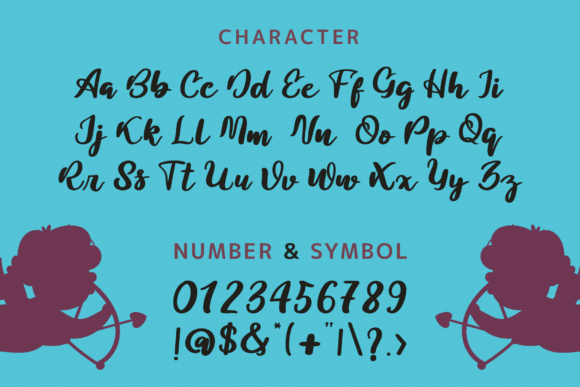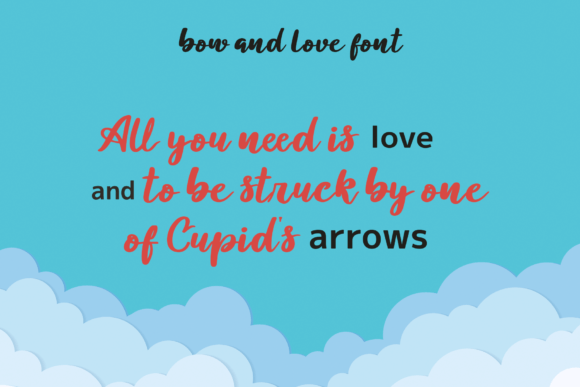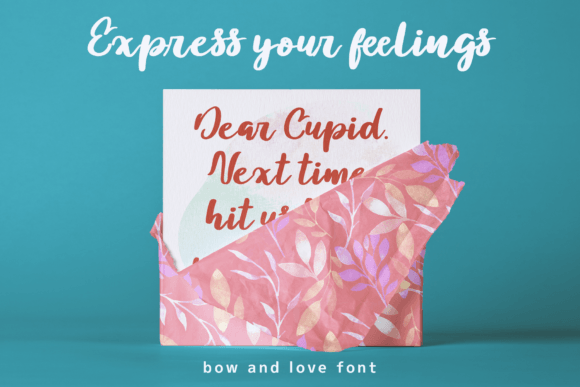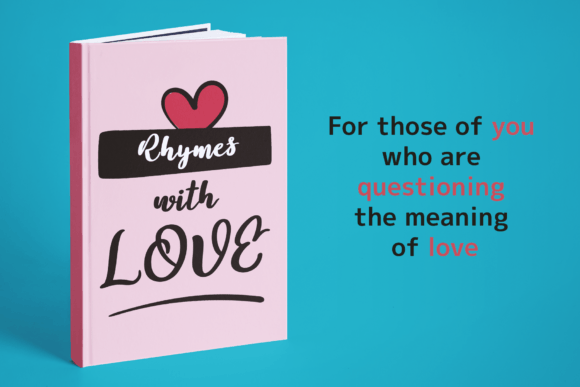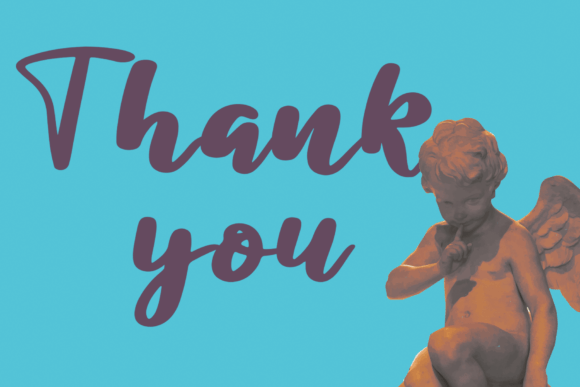
The Magic of “Bow and Love” Font: Elevate Your Romantic Designs
Have you ever been in the middle of a design project, and suddenly, you’re stuck on finding the perfect font? I recall a particularly frustrating experience while working on a wedding invitation design. My client wanted a font that exuded romance, elegance, and playfulness all at once. After hours of searching, I stumbled upon the “Bow and Love” font, which instantly captured the essence of love and affection. In this article, I’ll share my journey with this beautiful font, its features, and how you can make the most of it in your creative projects.
An Honest Review of “Bow and Love” Font
The “Bow and Love” font has been a game-changer for my designs. Here’s what I love about it:
- ✨ Hard strokes that give it a unique, hand-crafted feel
- ✅ Signature style that screams romance and elegance
- 💕 Perfect for a wide range of creative projects, from wedding cards to product packaging
- 🌟 Universal and modern design that adapts to any theme or style
While “Bow and Love” is an amazing font, it’s not without its quirks:
- 🤔 Some users might find the font a bit too ornate for certain projects
The Backstory of “Bow and Love” Font
The “Bow and Love” font was designed with the intention of capturing the essence of love and romance. Its creator aimed to craft a font that would evoke feelings of warmth, elegance, and playfulness. The result is a beautiful, signature-style font that’s perfect for a wide range of creative projects.
| Font Name | Bow and Love Font |
| Author | Senekaligrafi Font |
| What makes “Bow and Love” font unique? | The font’s hard strokes and signature style give it a distinctive, hand-crafted feel that’s perfect for romantic designs. |
| Is “Bow and Love” available in different styles or weights? | While the font comes in a single style, its OpenType features and glyphs offer a range of creative possibilities. |